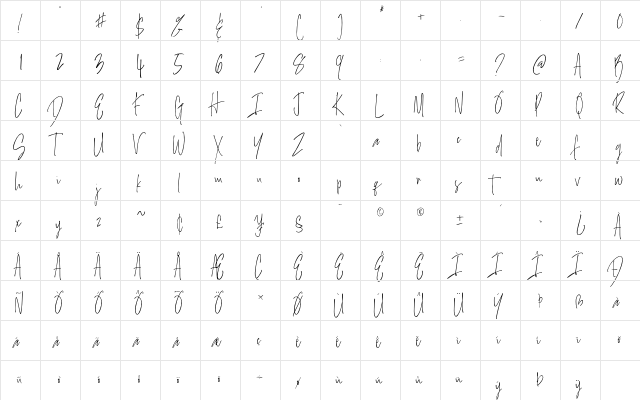
Salernitana Script Regular
Design Context for Salernitana Script Typeface
Salernitana Script brings a calligraphic fluidity to the page — its connecting strokes and expressive curves give it an unmistakably human quality.
Font Pairing: Combine Salernitana Script with a simple geometric sans for maximum contrast — the tension between flowing curves and clean structure is a classic typographic pairing.
Pro Tip: Use Salernitana Script for short runs of text — names, titles, or taglines. Extended body copy in script faces tires the eye quickly.